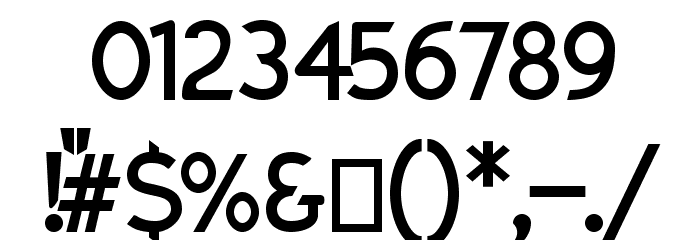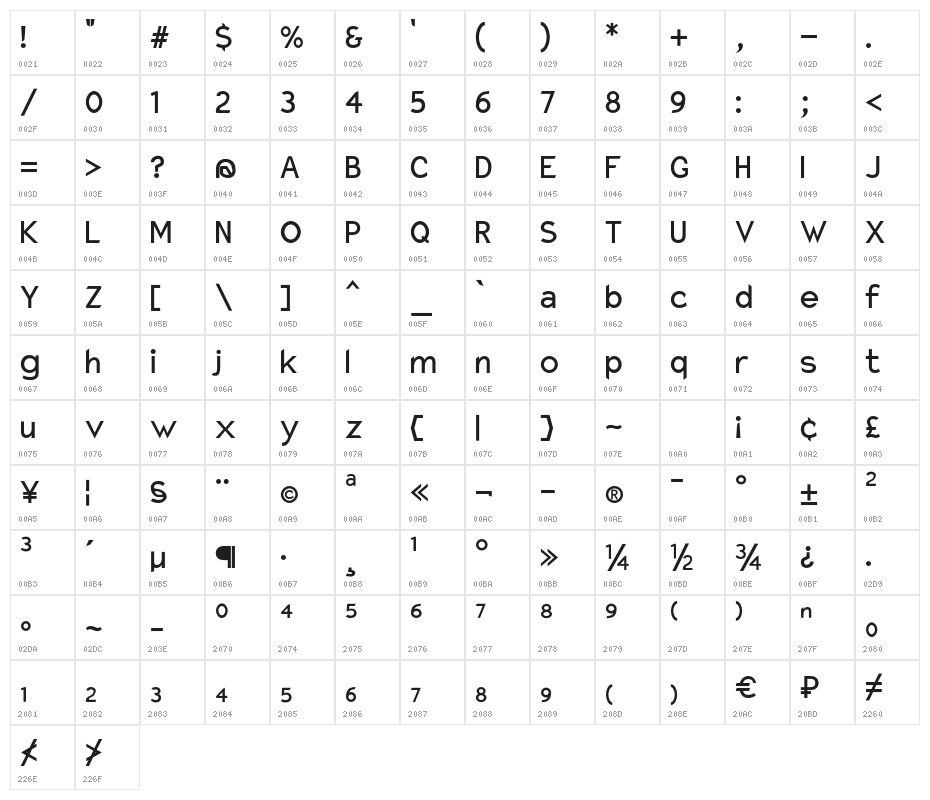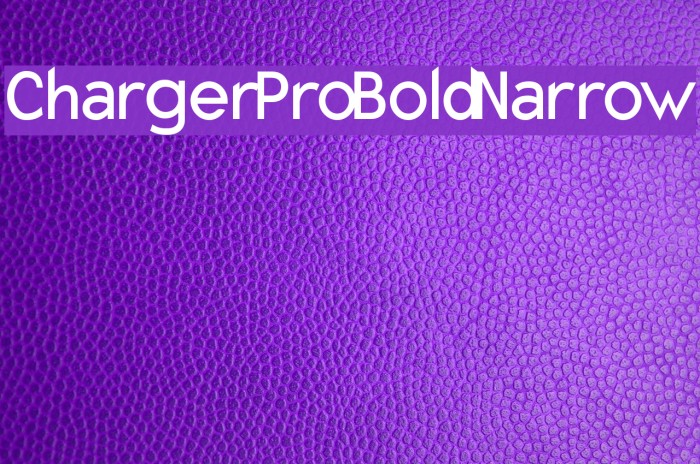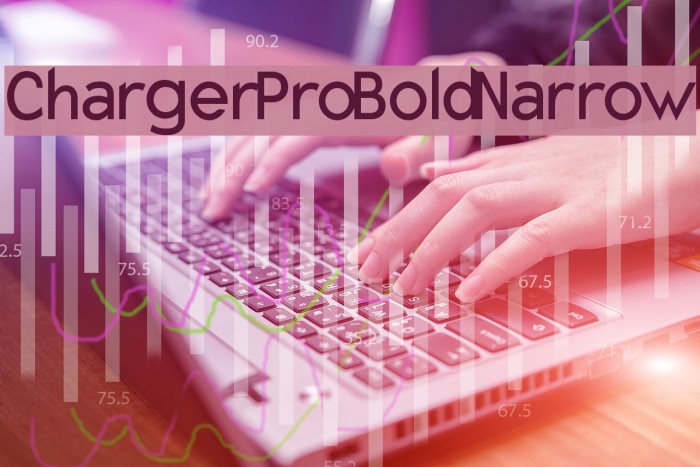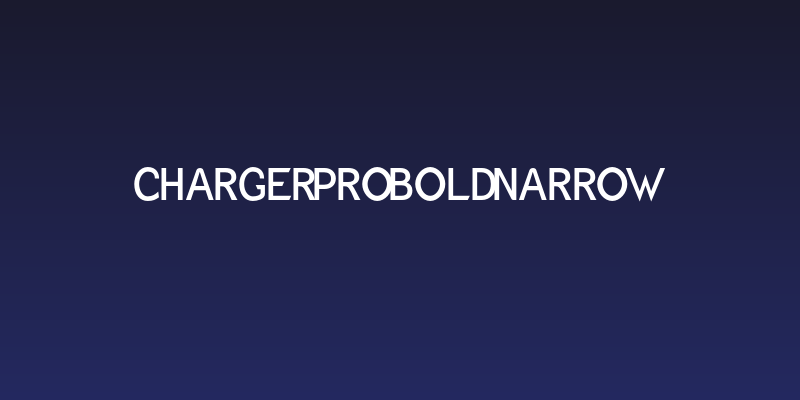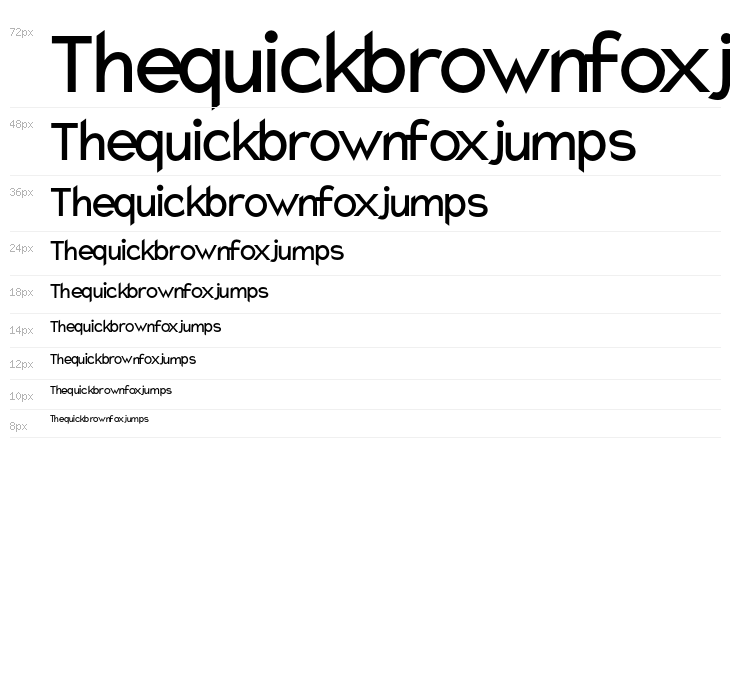
Charger Pro Bold Narrow Font
Charger Pro Bold Narrow Description
This typeface features a bold and narrow design, characterized by clean and modern lines. The uppercase and lowercase letters are well-proportioned, offering a sleek and contemporary look. The numerals are clear and easy to read, maintaining the same boldness and narrowness as the alphabetic characters. Special characters are distinct and integrate seamlessly with the overall style. The font's design is highly legible, making it suitable for various applications where clarity and impact are essential.
| Use Case | Headlines, Logos, Advertising |
| Proposed Projects | Ideal for branding, advertising, headlines, and digital content where a strong, modern impression is needed. |